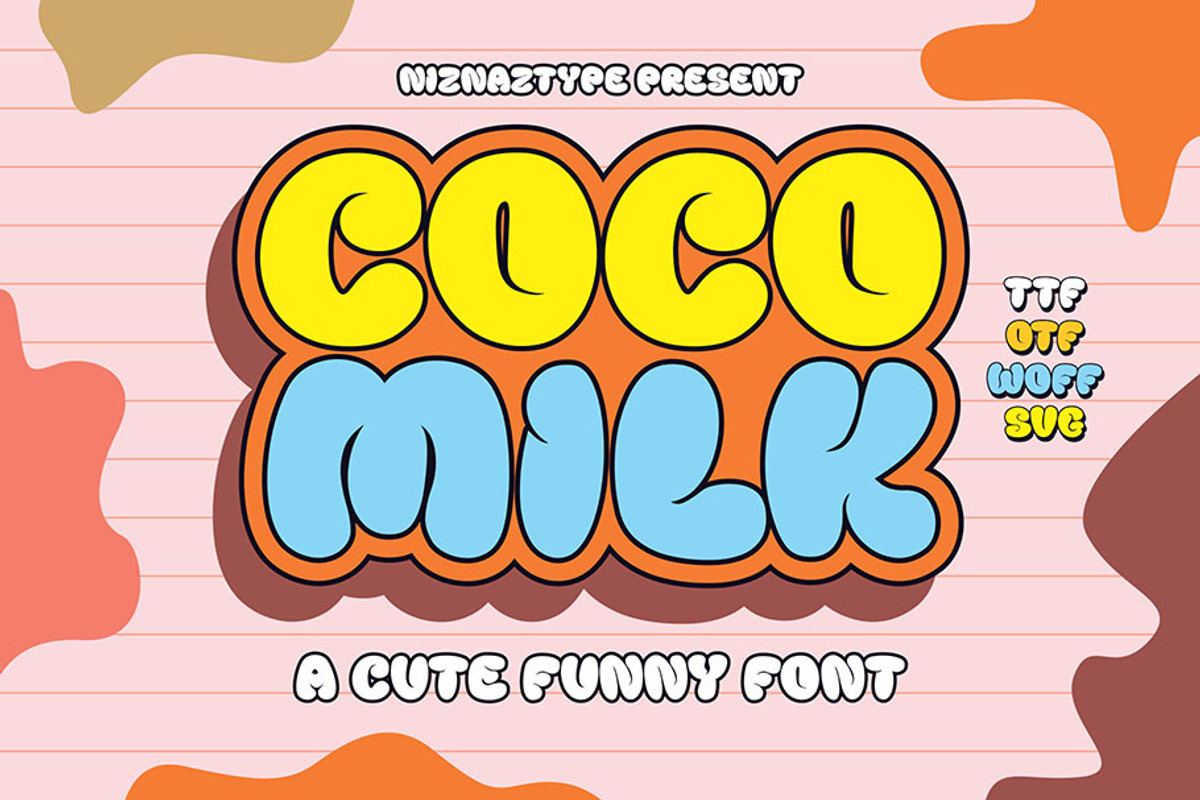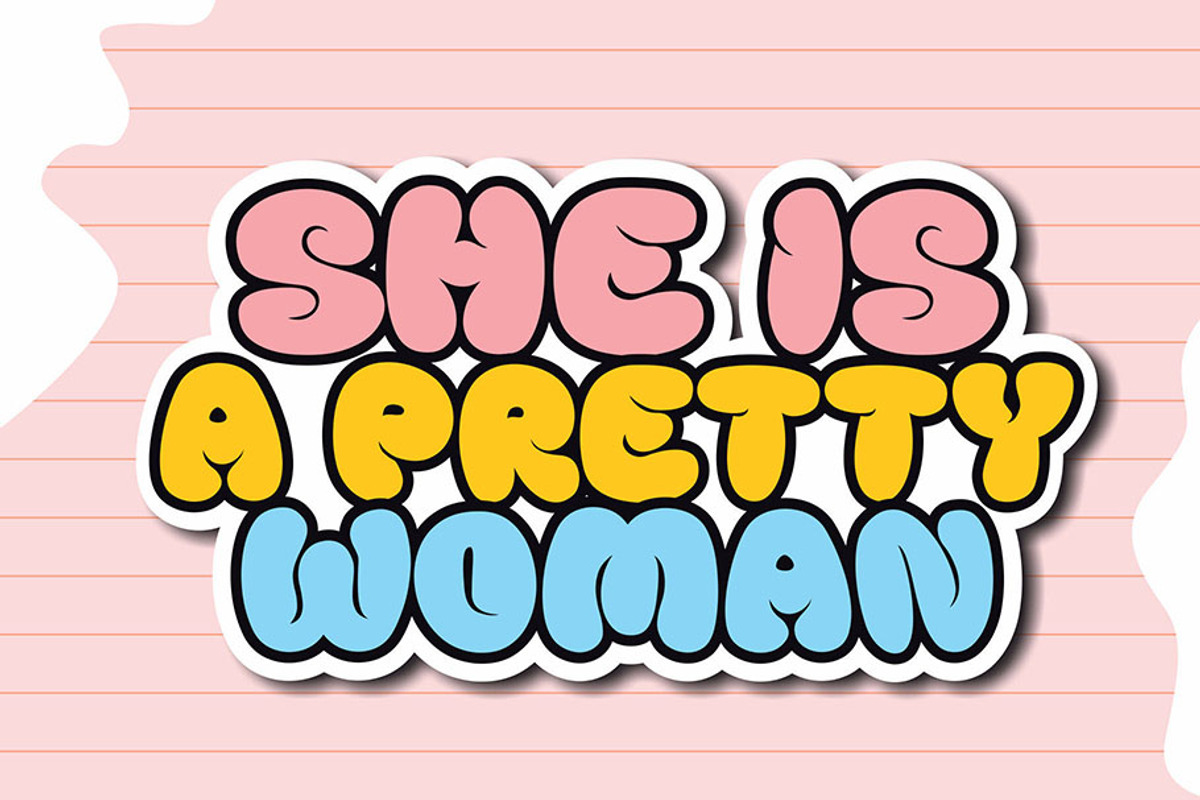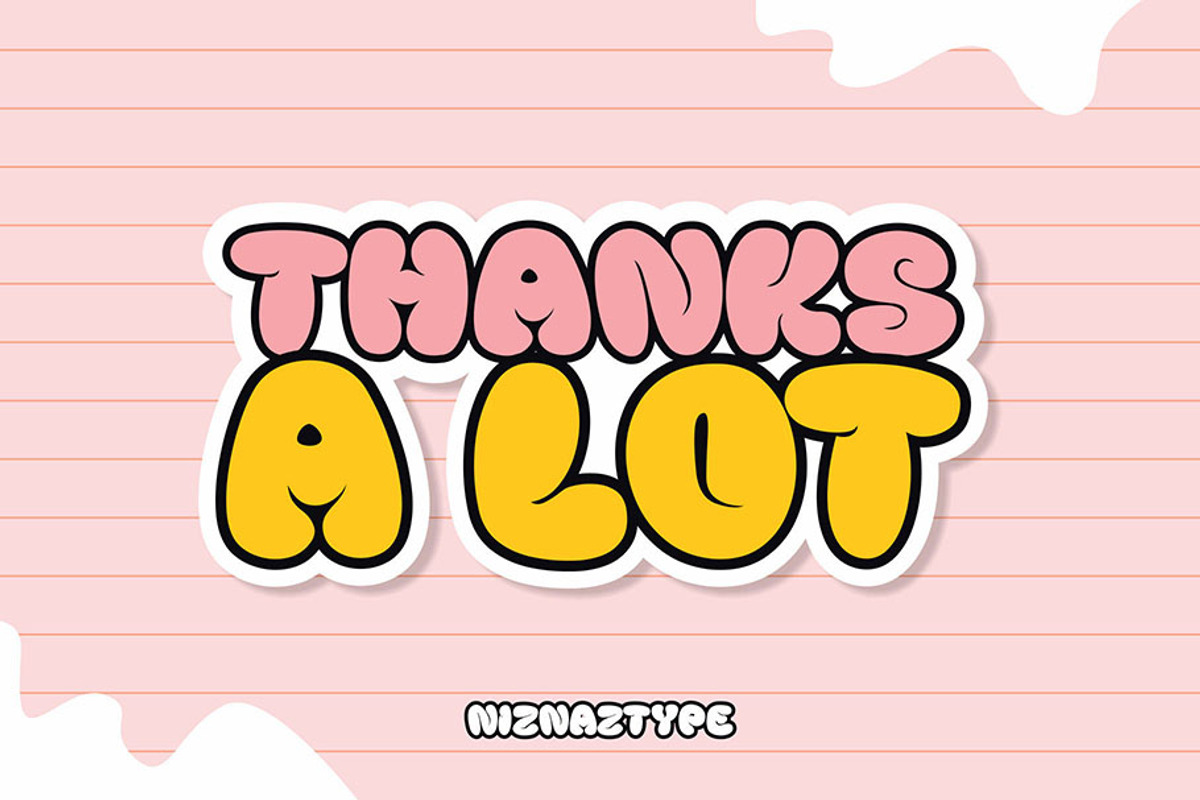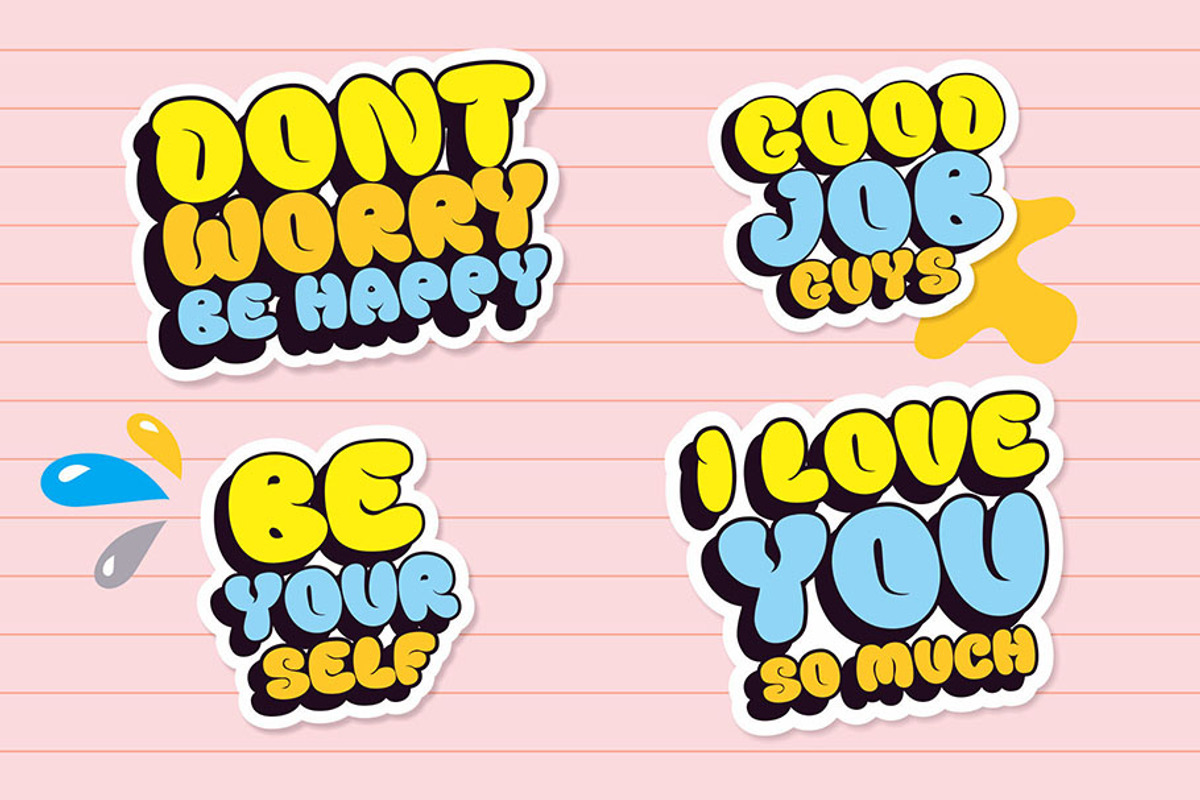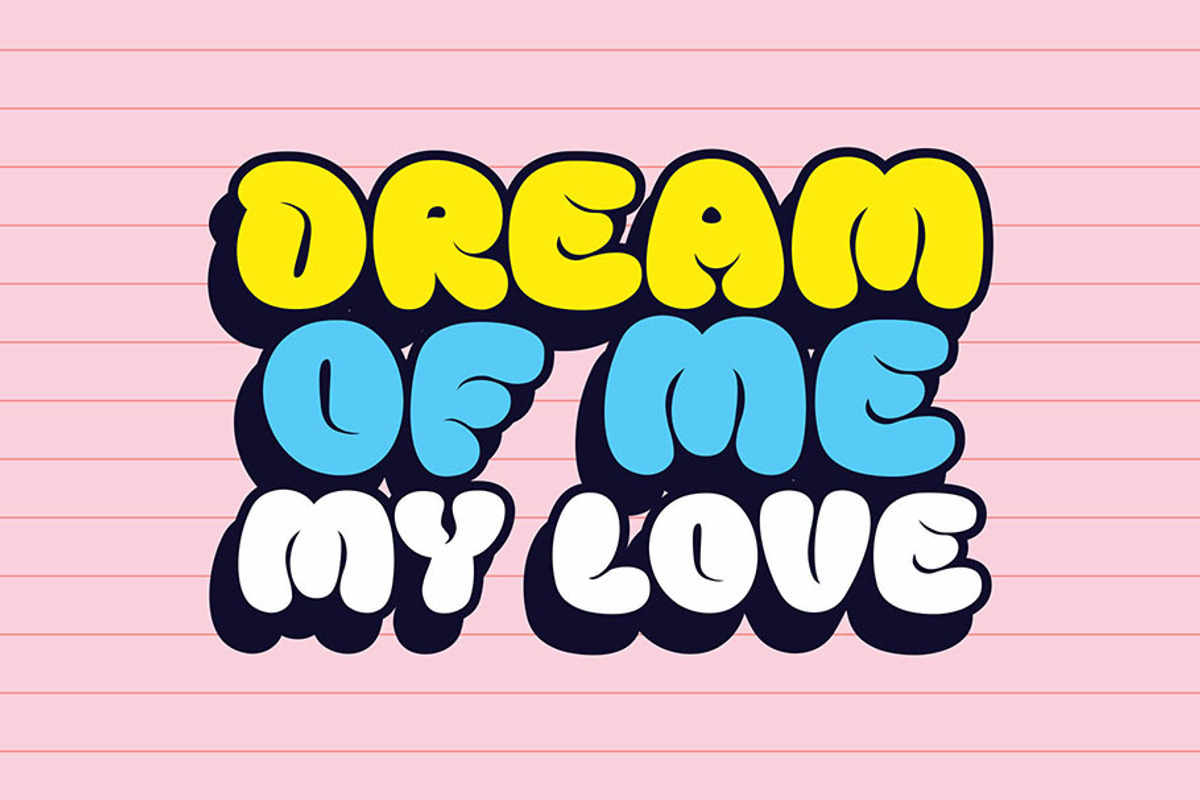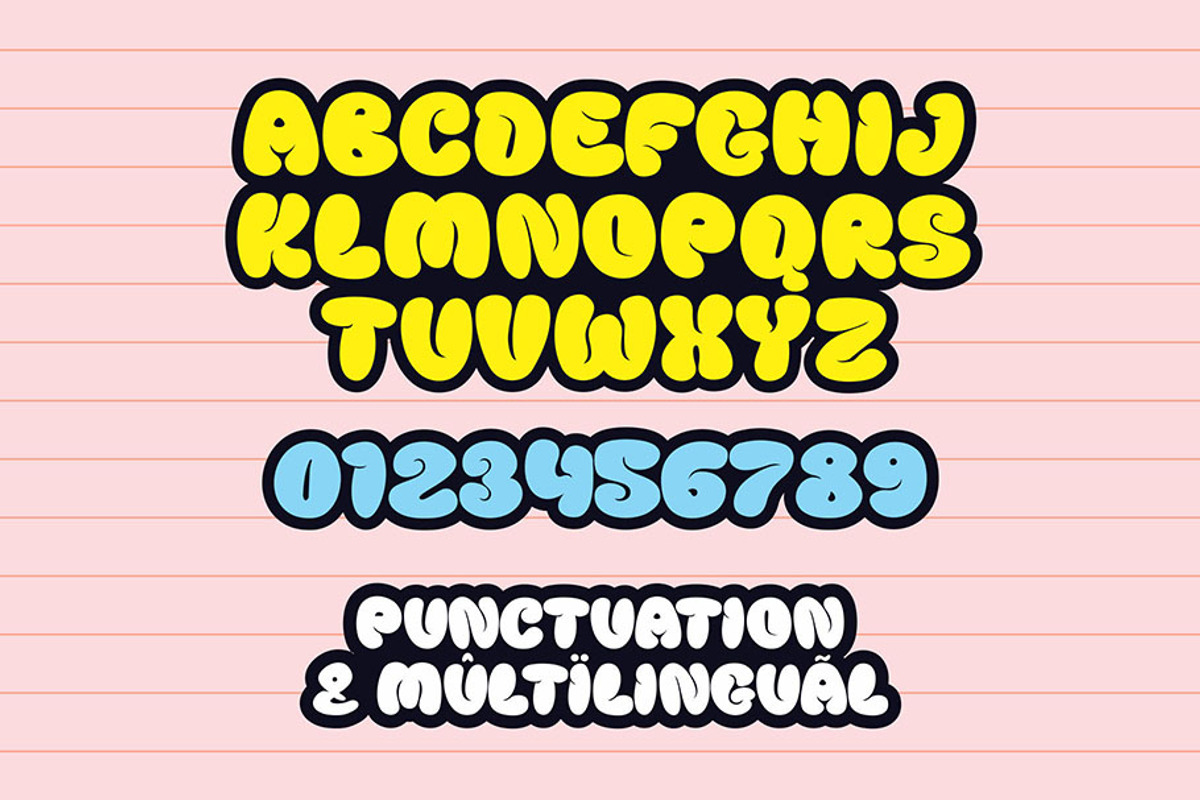
COCO MILK - A Cute Funny Font
Coco Milk is a cute funny font. It look has a fun, cute and happy style. Very suitable to used in comic work or illustration. Form of Coco Milk shape is bold and fat. A playful cartoon comic typeface with unique shape. Coco Milk also comfortable for designs, such as product tittle, book cover, ballon text, wallpainting letter, t-shirt and more others. Design themes like comic, cartoon, kids, children are very good if used Coco Milk font. The consumer especially the children actually so like to look this cute font. Coco Milk consist of :
- Numeral and punctuation